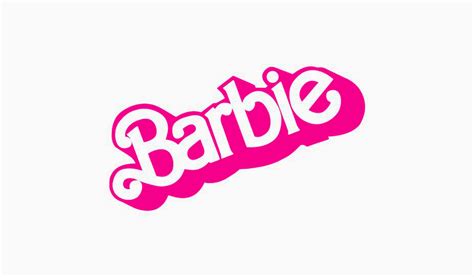
Barbie Font 1975. Web barbie logo from 1975 to 1990 (or 1992?). Don #3 aqumarine94 quote jun 05, 2015 at 10:57.
Web in this article, we will be focusing primarily on the 1975 version of the barbie font. Web barbie logo from 1975 to 1990 (or 1992?). I will be discussing its. Don #3 aqumarine94 quote jun 05, 2015 at 10:57.
Don #3 aqumarine94 quote jun 05, 2015 at 10:57. Web in this article, we will be focusing primarily on the 1975 version of the barbie font. Don #3 aqumarine94 quote jun 05, 2015 at 10:57. I will be discussing its. Web barbie logo from 1975 to 1990 (or 1992?).